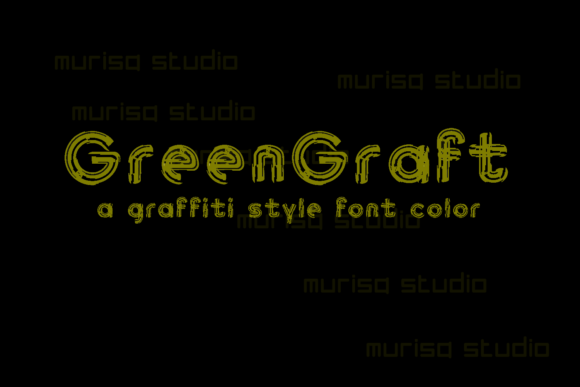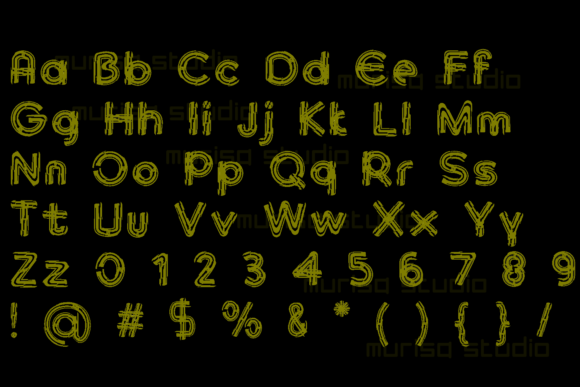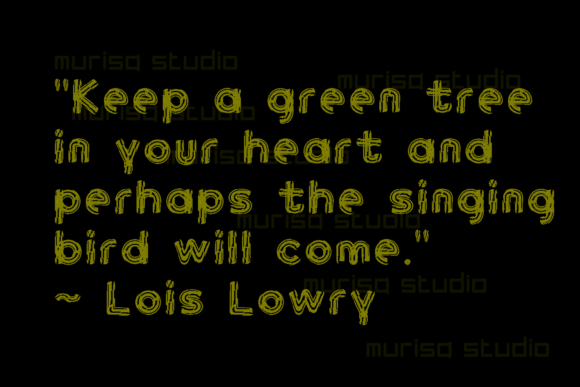
About GreenGraft Font
GreenGraft is a cool and adaptable color font that adds a touch of versatility and artistic flair to your designs. Whether you’re searching for fonts for Instagram posts or calligraphy scripts for DIY projects, this font will transform any creative idea into a true piece of art.
With its unique and eye-catching letterforms, GreenGraft offers a wide range of possibilities for your typography needs. It seamlessly blends modern and artistic elements, making it suitable for a variety of purposes and design styles.
Whether you’re creating social media graphics, branding materials, invitations, or personalized DIY projects, GreenGraft brings a sense of creativity and elegance to your designs. Its adaptability allows you to experiment and explore different styles and applications.
Embrace the cool and adaptable nature of GreenGraft and witness how it enhances your Instagram posts, calligraphy scripts, and other creative endeavors. With this font, you have a powerful tool to elevate your designs and transform them into true works of art. Let GreenGraft inspire your creativity and make your projects stand out with its artistic charm.